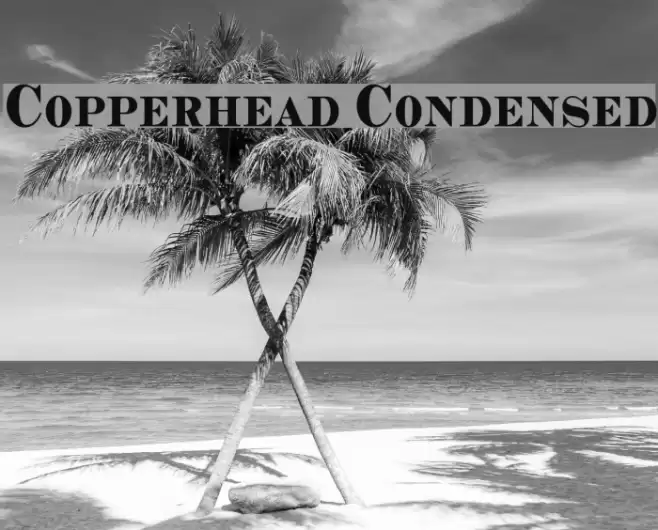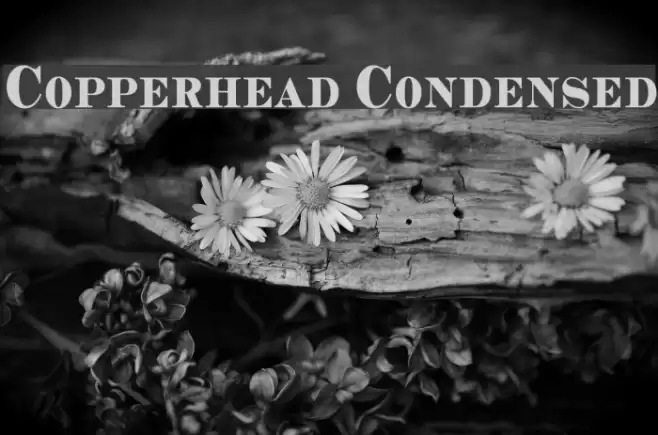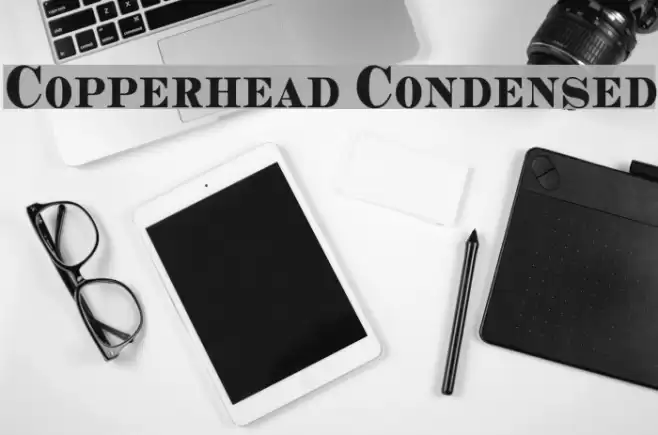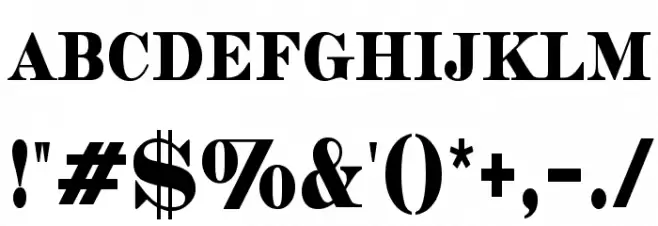
Copperhead Condensed Font
Copperhead Condensed Description
This font features a bold and condensed style with strong, thick strokes that give it a powerful and impactful appearance. The uppercase letters are prominent and assertive, making them ideal for attention-grabbing headlines. The design includes sharp serifs and a high contrast between thick and thin lines, adding a touch of elegance and sophistication. The characters are tightly spaced, enhancing the condensed look and making it suitable for compact layouts. The font's overall style is modern yet retains a classic serif influence, making it versatile for various design applications.
A bold, condensed serif font with high contrast and sharp serifs from Uncategorized fonts.
- Proposed Projects: Ideal for headlines, posters, branding, and editorial design where a strong visual impact is desired.
- Character Spacing: Tight